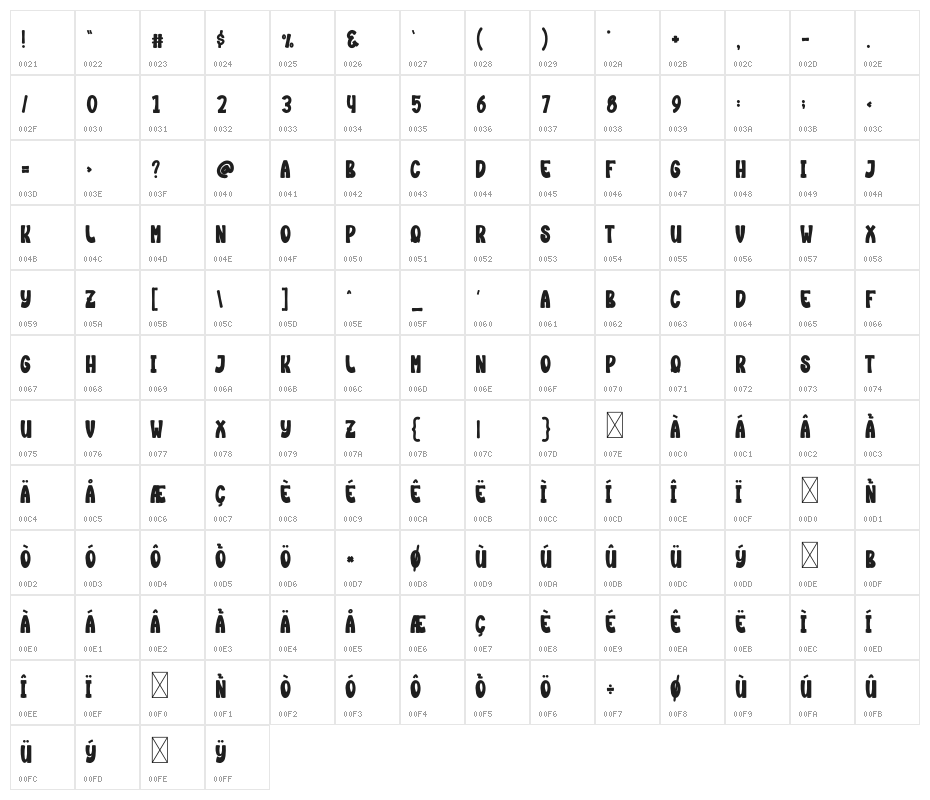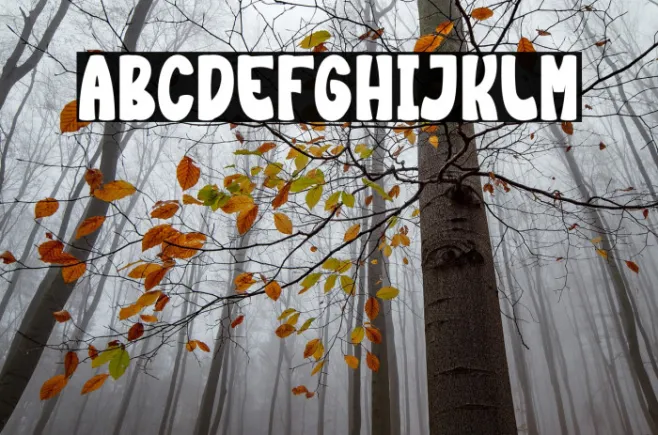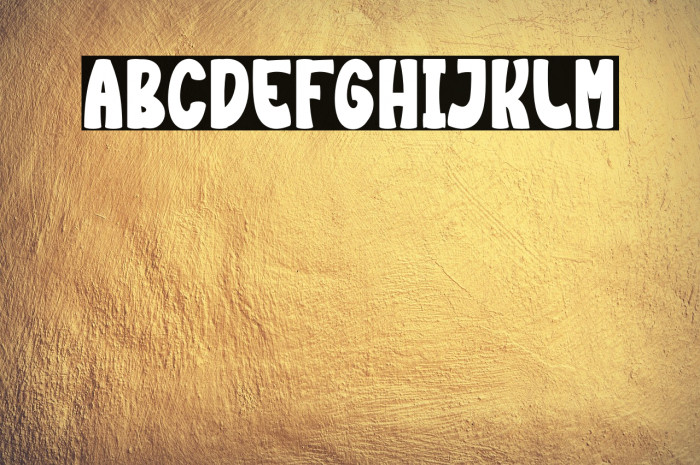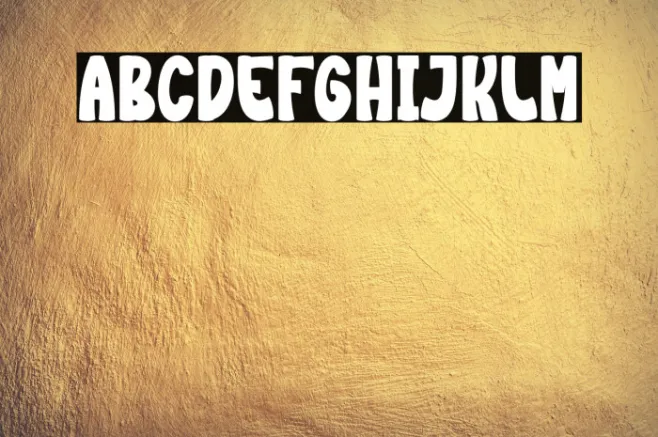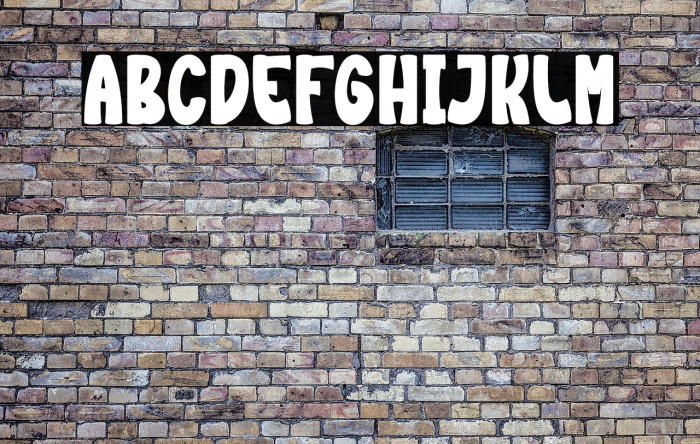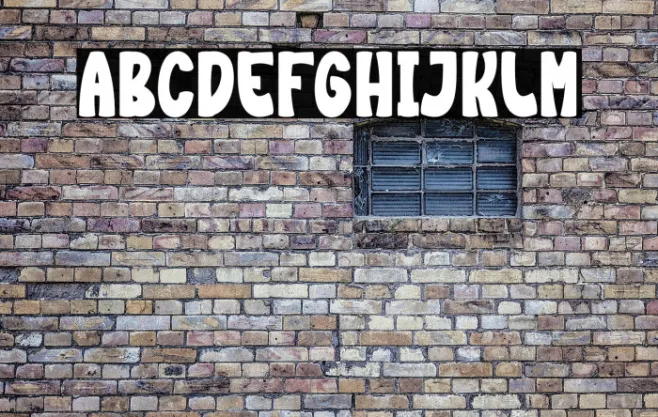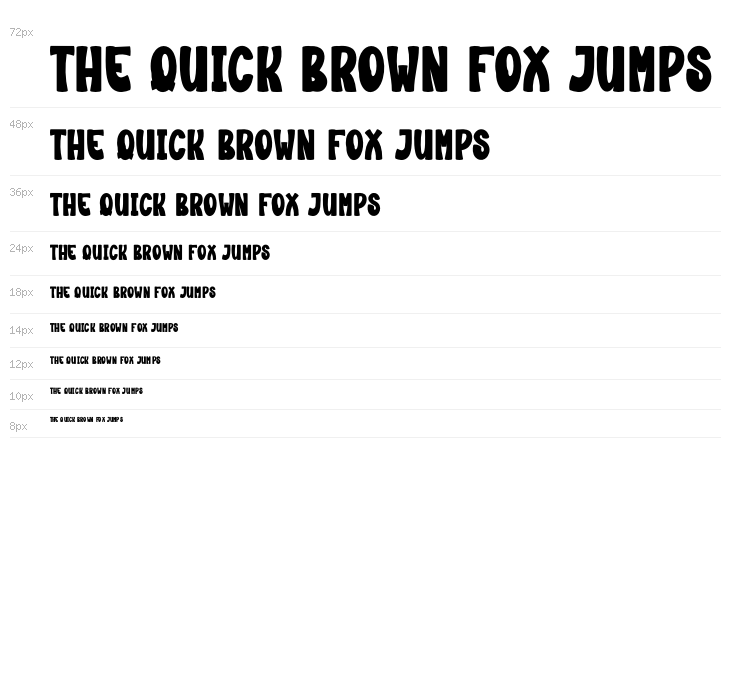
Winter Spirit Font
This font features a bold and playful design with a whimsical touch. The characters are thick and rounded, giving them a friendly and approachable appearance. The uppercase and lowercase letters maintain a consistent style, with slight variations that add to the charm. Numbers and special characters are designed to match the playful theme, making the font suitable for creative and fun projects. The overall look is reminiscent of hand-drawn or cartoon styles, making it ideal for informal and lighthearted applications.
A bold, playful font with a whimsical, hand-drawn style.
- Font: Winter Spirit
- Proposed Projects: Ideal for children's books, playful branding, party invitations, and creative posters.
- Overall Style: Playful, Whimsical